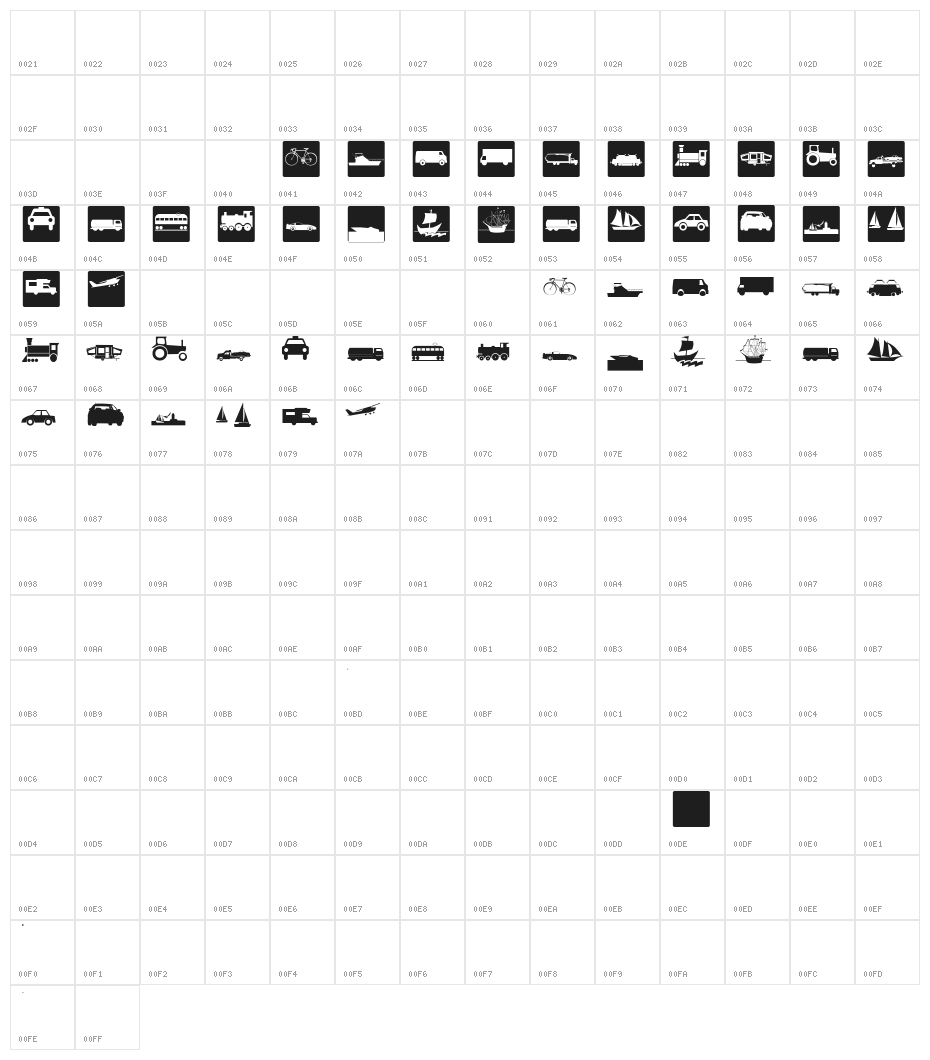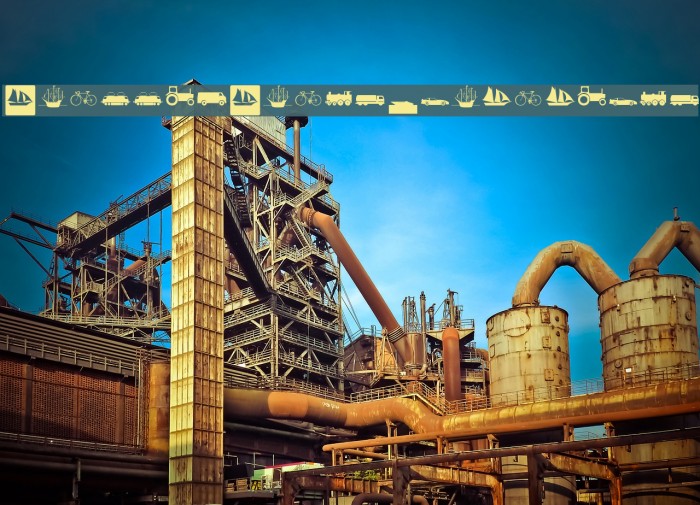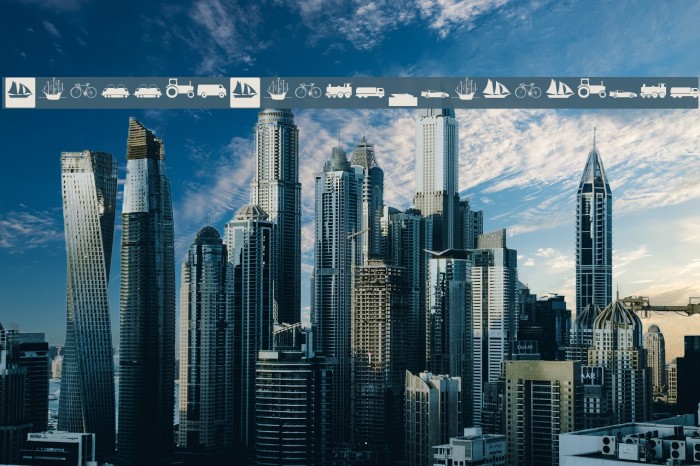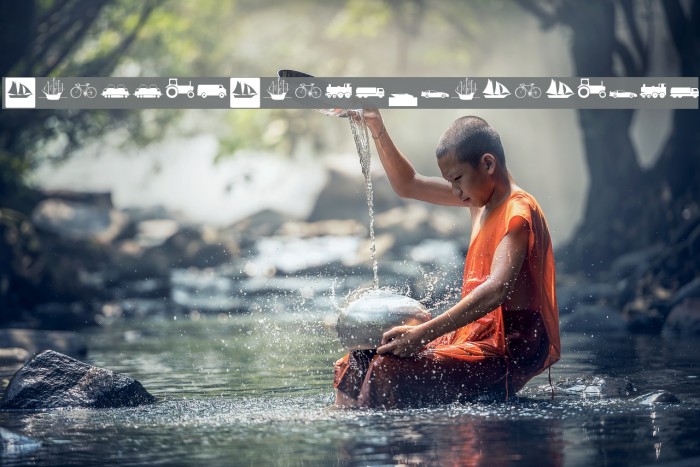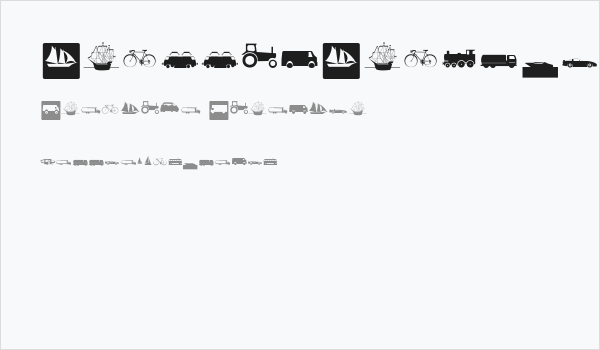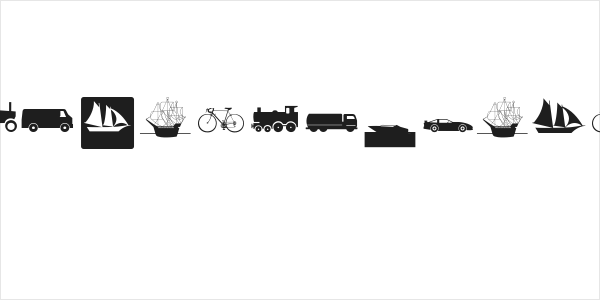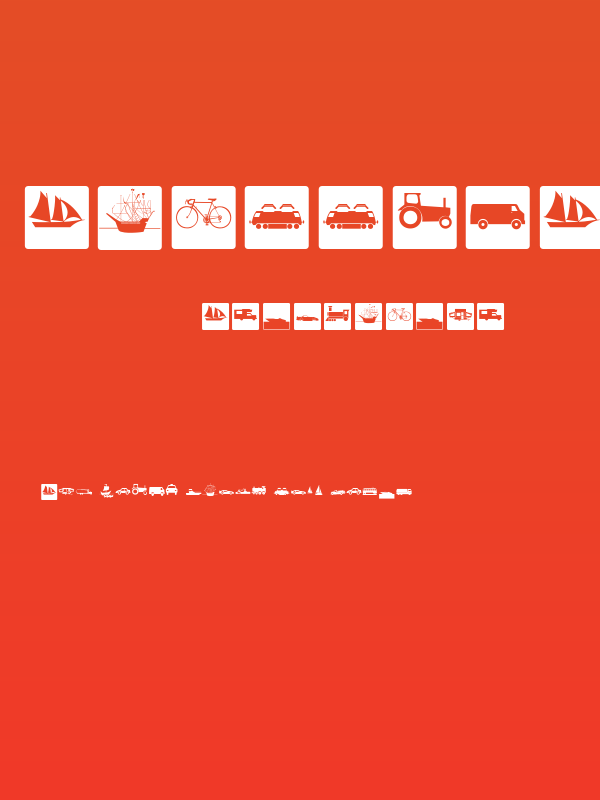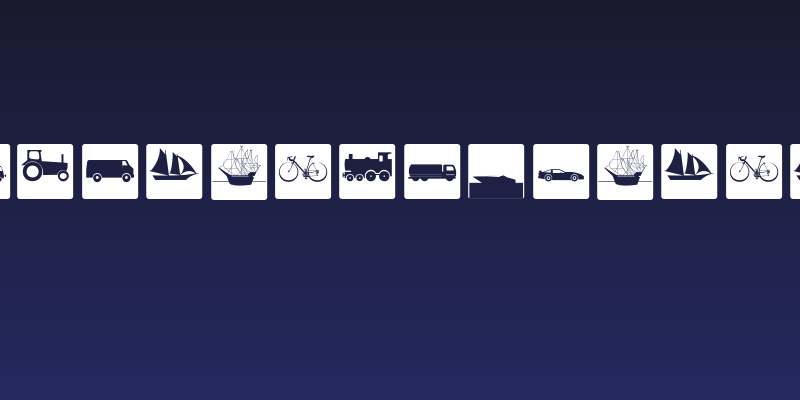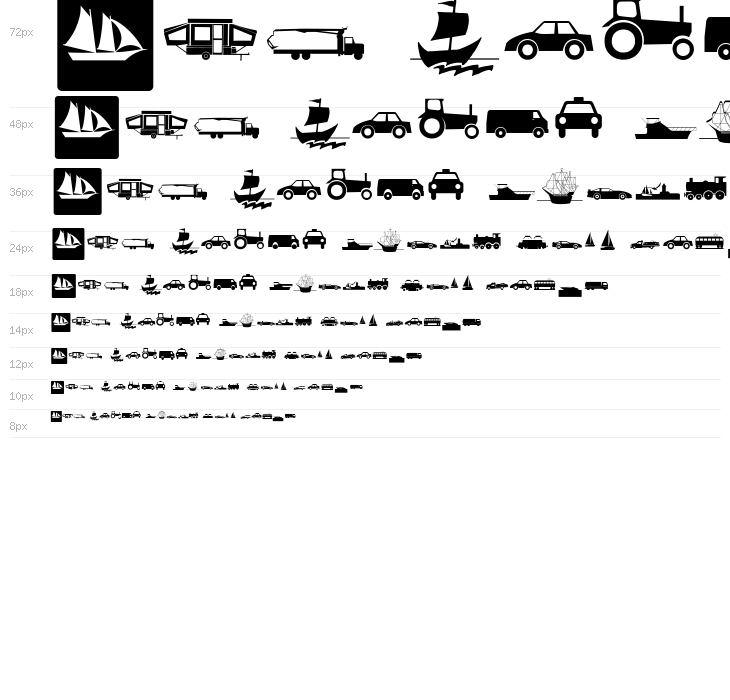
TrafficTransportations Font
TrafficTransportations Description
A pictogram-style dingbat font featuring a variety of transportation and vehicle icons, including bicycles, boats, trucks, ships, cars, trains, planes, and construction vehicles. Each character is represented as a bold, high-contrast silhouette within a square or standalone, making the icons easily recognizable and visually impactful.